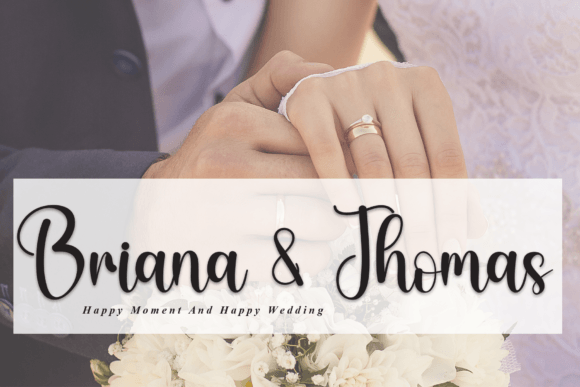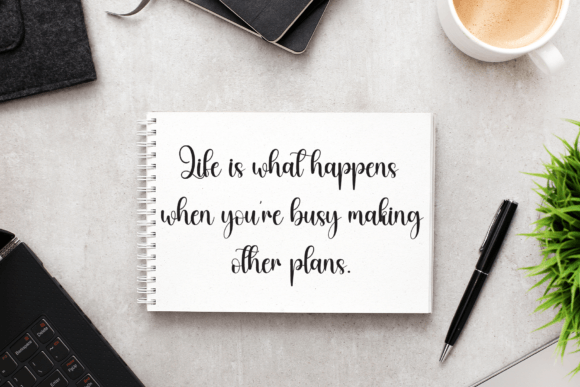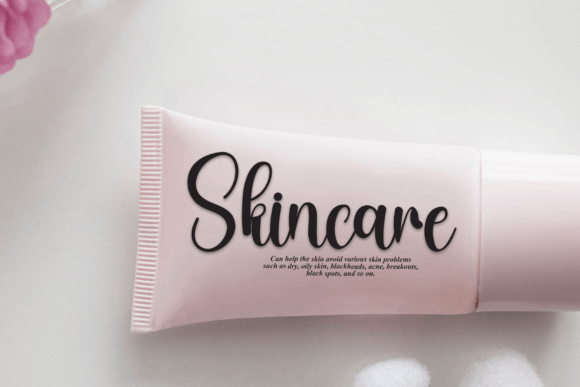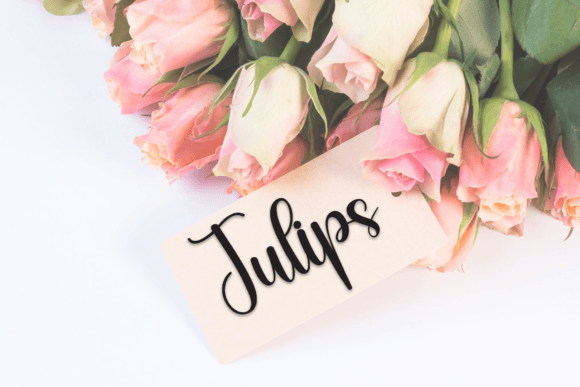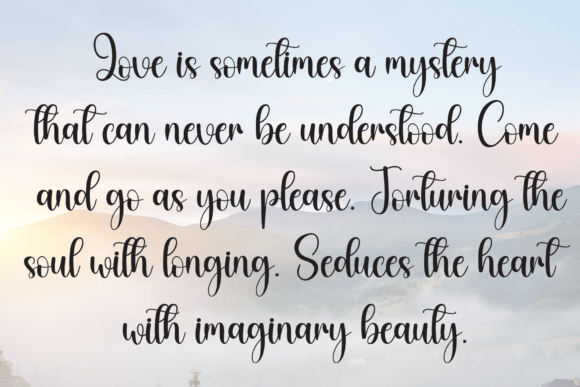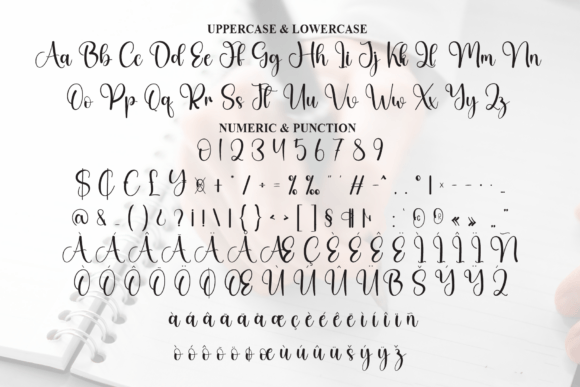
Introducing Autography Font: The Perfect Handwritten Style for Your Creative Projects
Are you looking for a font that can add a personal touch to your invitations, notes, and other creative projects? Look no further than Autography Font! This stylish handwritten font is designed to mimic natural, personal writing, making it perfect for crafters, designers, and anyone looking to add a touch of warmth and personality to their work.
What is Autography Font?
Autography Font is a beautiful, handwritten font that features smooth, flowing letters that give off a friendly and casual feel. It’s the perfect choice for anyone looking to add a personal touch to their projects, whether it’s a wedding invitation, a thank-you note, or a social media post. With Autography Font, you can create unique and eye-catching text that will make your work stand out from the crowd.
Key Features of Autography Font
- Smooth and flowing letters: Autography Font features smooth, flowing letters that are easy to read and give off a friendly, approachable feel.
- Natural and personal look: This font is designed to mimic natural, personal writing, making it perfect for adding a personal touch to your projects.
- Casual and friendly feel: Autography Font has a casual and friendly feel that’s perfect for invitations, notes, and other creative projects.
- Perfect for crafters and designers: Whether you’re a crafter, designer, or just someone who loves to create, Autography Font is the perfect choice for adding a personal touch to your work.
Uses for Autography Font
Autography Font is a versatile font that can be used for a wide range of creative projects, including:
- Wedding invitations: Add a personal touch to your wedding invitations with Autography Font, making them truly special and unique.
- Thank-you notes: Use Autography Font to write heartfelt, handwritten-style thank-you notes that will make your recipients feel special.
- Social media posts: Add a personal touch to your social media posts with Autography Font, making them stand out from the crowd.
- Creative projects: Whether you’re working on a craft project, a DIY project, or just something for fun, Autography Font is the perfect choice for adding a personal touch.
Why Choose Autography Font?
There are many reasons why Autography Font is the perfect choice for your creative projects. Here are just a few:
- Unique and eye-catching: Autography Font is a unique and eye-catching font that will make your work stand out from the crowd.
- Easy to read: Despite its handwritten style, Autography Font is easy to read and understand, making it perfect for a wide range of projects.
- Versatile: Autography Font can be used for a wide range of creative projects, from wedding invitations to social media posts.
- High-quality: Autography Font is a high-quality font that’s designed to deliver exceptional results, every time.
Tips for Using Autography Font
Here are a few tips for getting the most out of Autography Font:
- Use it for headings and titles: Autography Font is perfect for headings and titles, where you want to make a bold statement.
- Mix it with other fonts: Autography Font pairs well with other fonts, so don’t be afraid to mix it with some of your favorite fonts.
- Experiment with colors: Autography Font looks great in a wide range of colors, so don’t be afraid to experiment and find the perfect color for your project.